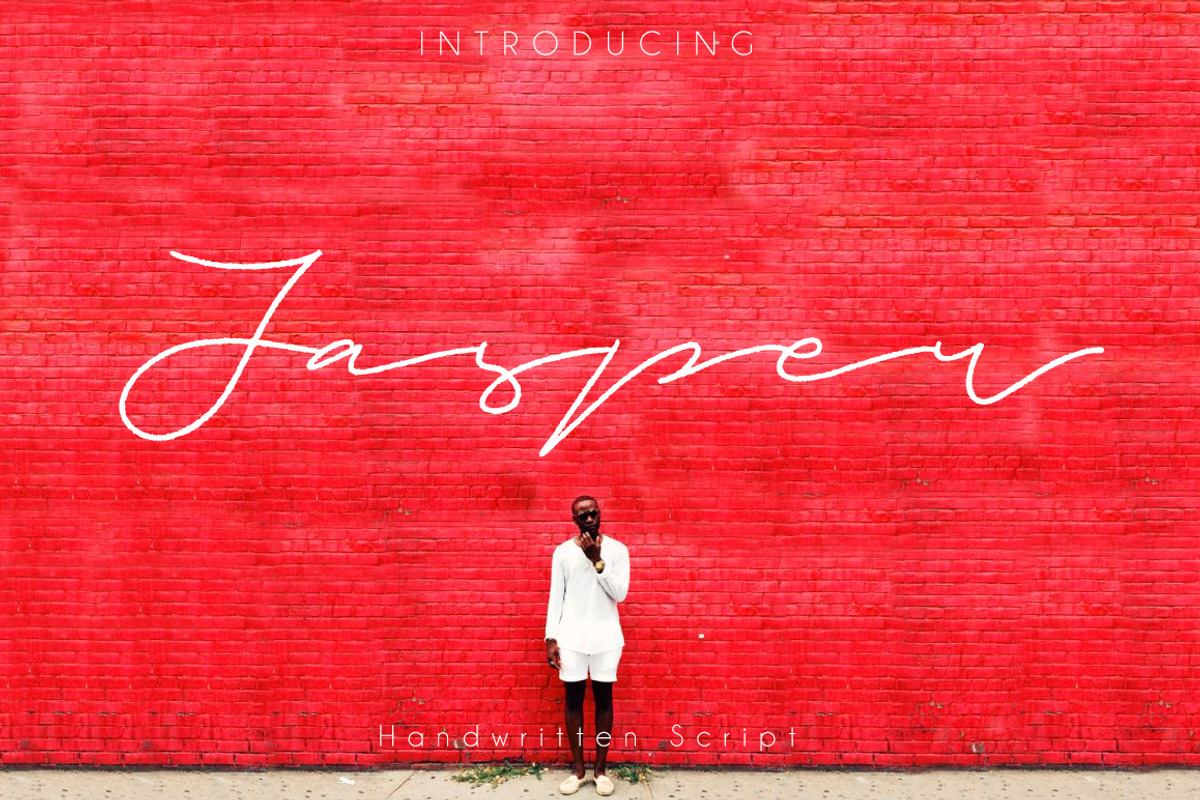
Jasper Script Free Download
Jasper Script Font Free Download
Jasper Script Font Free Download is a smooth and sophisticated handwritten typeface that blends elegance with a casual, modern vibe. Featuring flowing curves, graceful ligatures, and a natural pen-like texture, this script font is perfect for wedding invitations, branding, logos, signature-style headers, social media graphics, and stylish product packaging.
Its well-balanced strokes and subtle flourishes make Jasper Script both beautiful and highly readable, ideal for designs that need a touch of personality without sacrificing professionalism. It brings a handcrafted, human feel to any project.